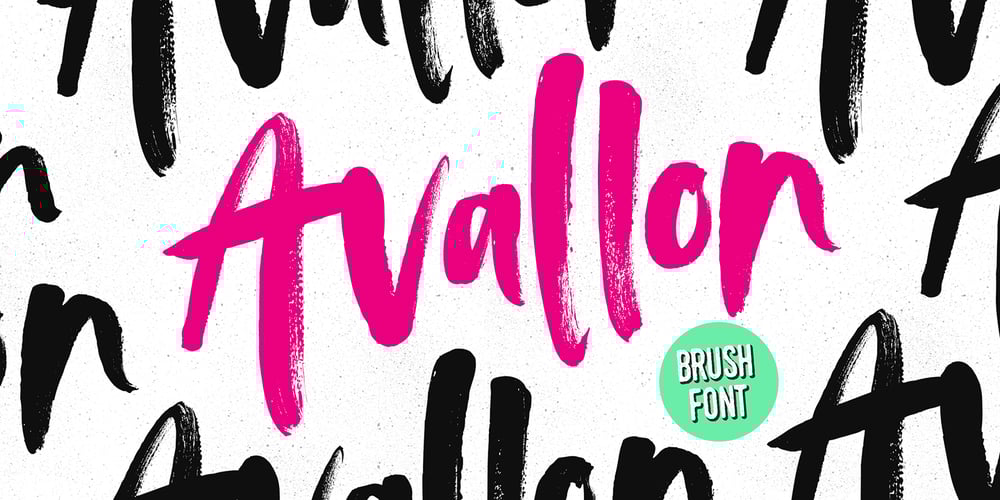
Avallon Font Family was designed by Sam Parrett and published by Set Sail Studios. Avallon contains 3 styles and family package options. Avallon is a wild and playful paintbrush font. With each letter authentically hand painted, Avallon maintains a wonderfully messy texture and realistic strokes. It’s the perfect choice for lively & loud display typography. Avallon also contains a full set of alternate lowercase characters in the ‘Alt’ version. If you wanted to avoid letters looking the same each time to recreate a custom-made style, or try a different word shape, simply switch to this font for an additional layout option.Not only that, Avallon contains a third variation – Avallon All Caps. This is a brand new set of capital letters, designed to pair perfectly with the regular version, and provide you with even more layout options for your text composition.Language Support; English, French, Italian, Spanish, Portuguese, German, Swedish, Norweigen, Danish, Dutch, Turkish, Polish, Finnish, Romanian, Hungarian, Estonian, Filipino, Indonesian, Icelandic, Romansh.